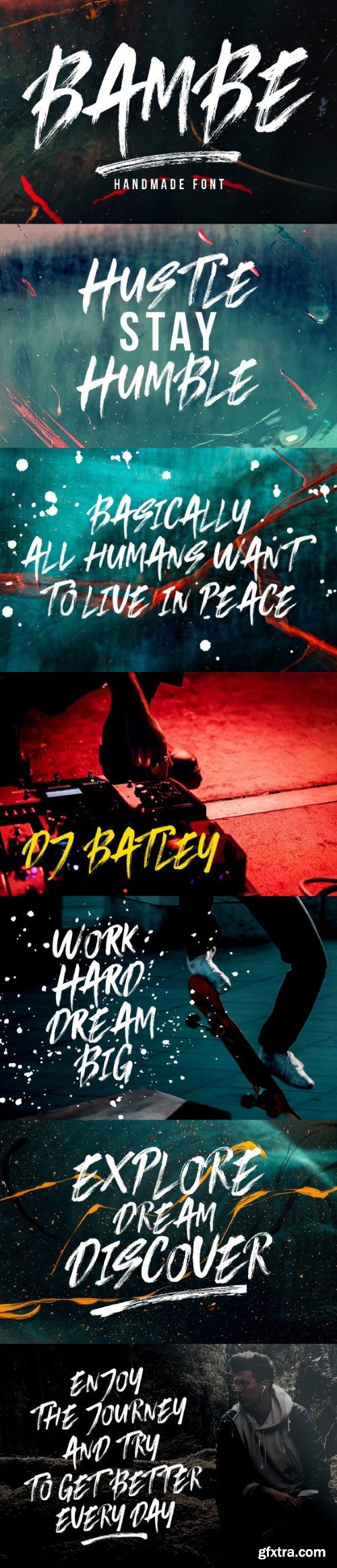
班贝字体
Bambe is a bouncy and quirky display font. It will add a fresh and contemporary touch to your designs. Add this unique display font to each of your creative ideas and notice how it makes them stand out!